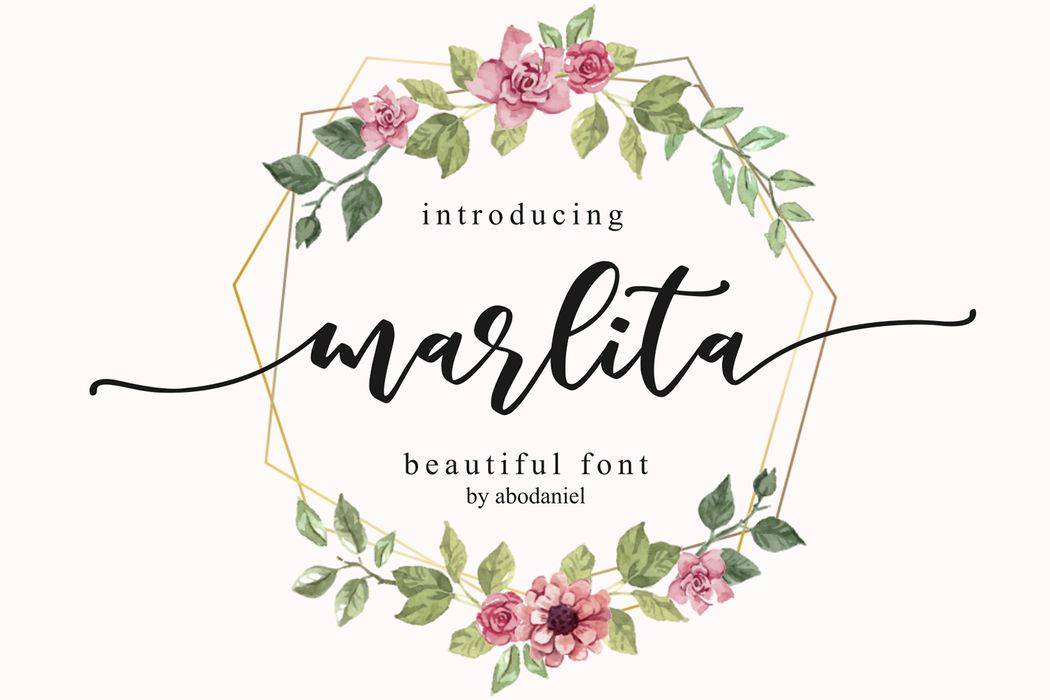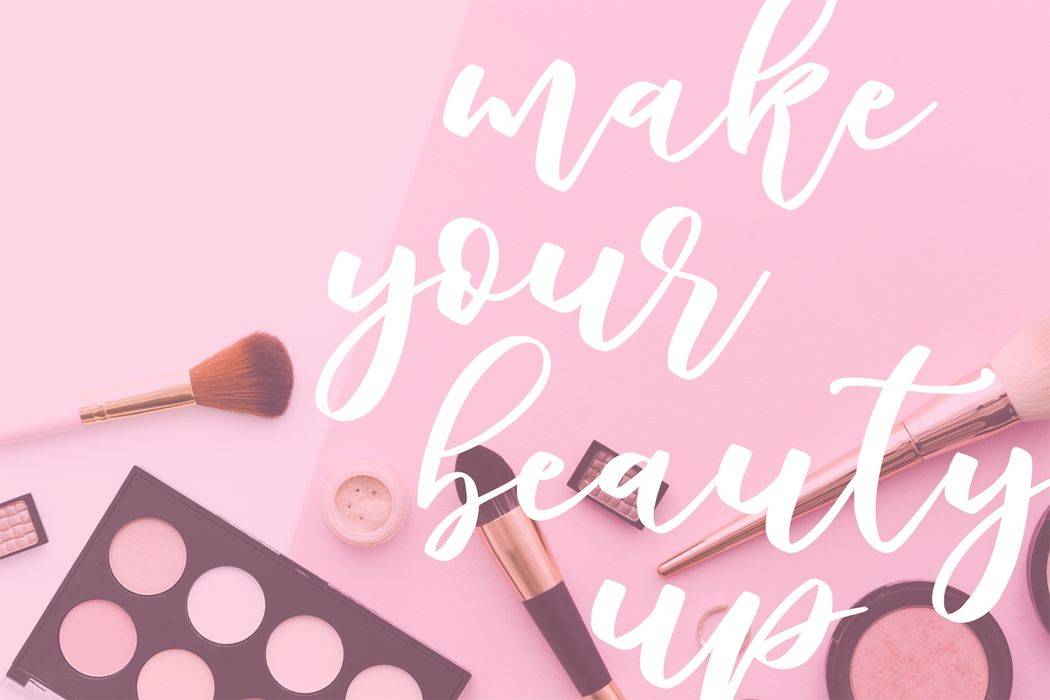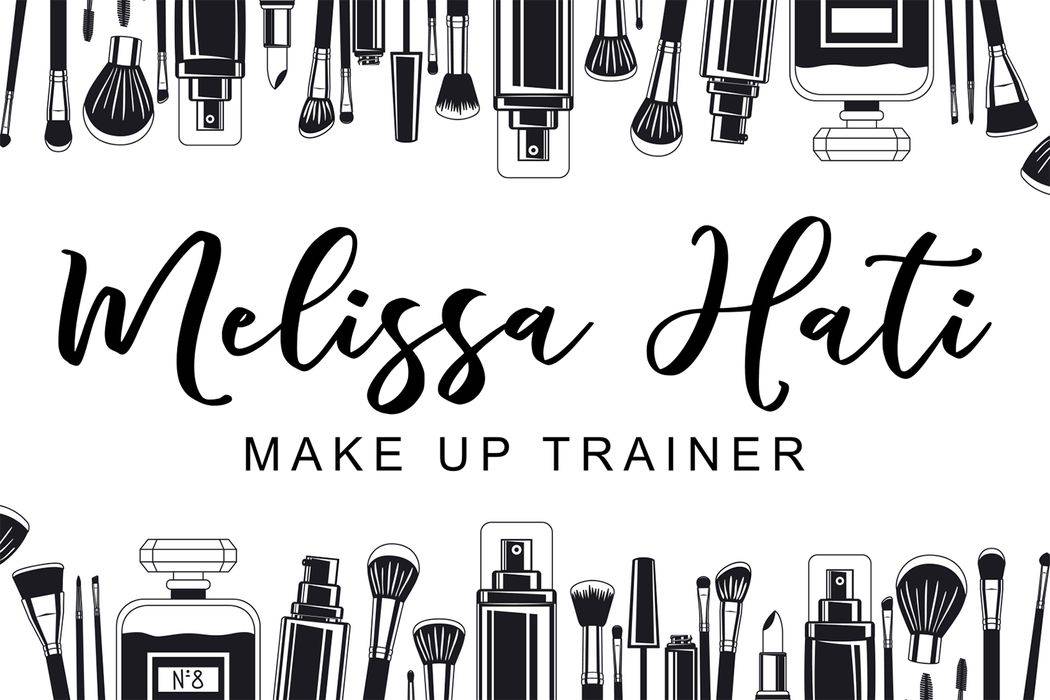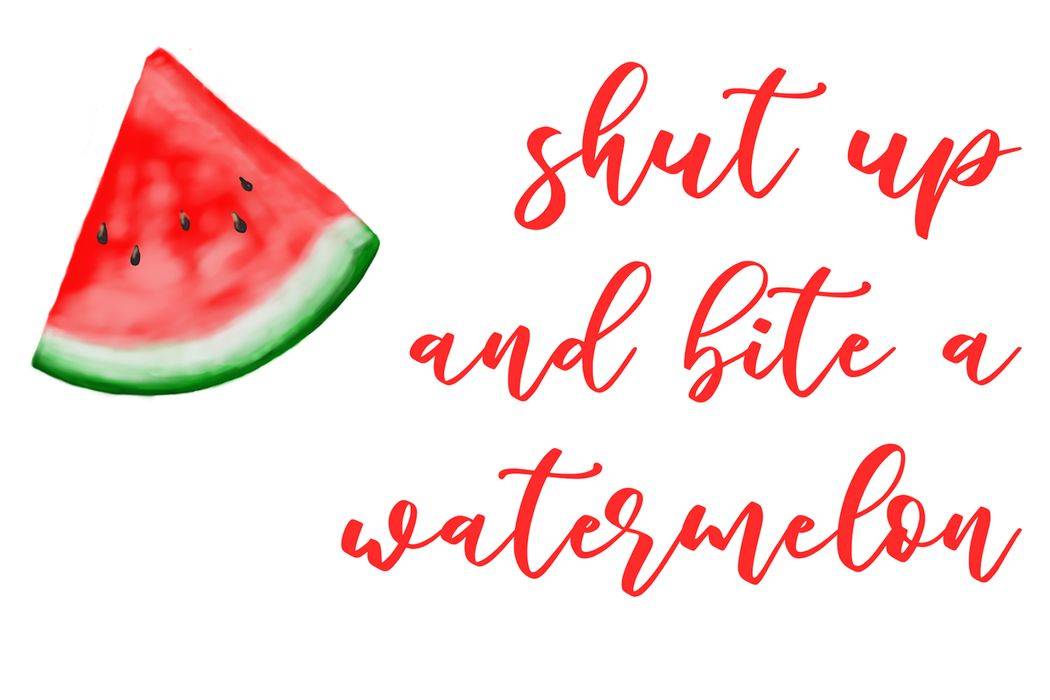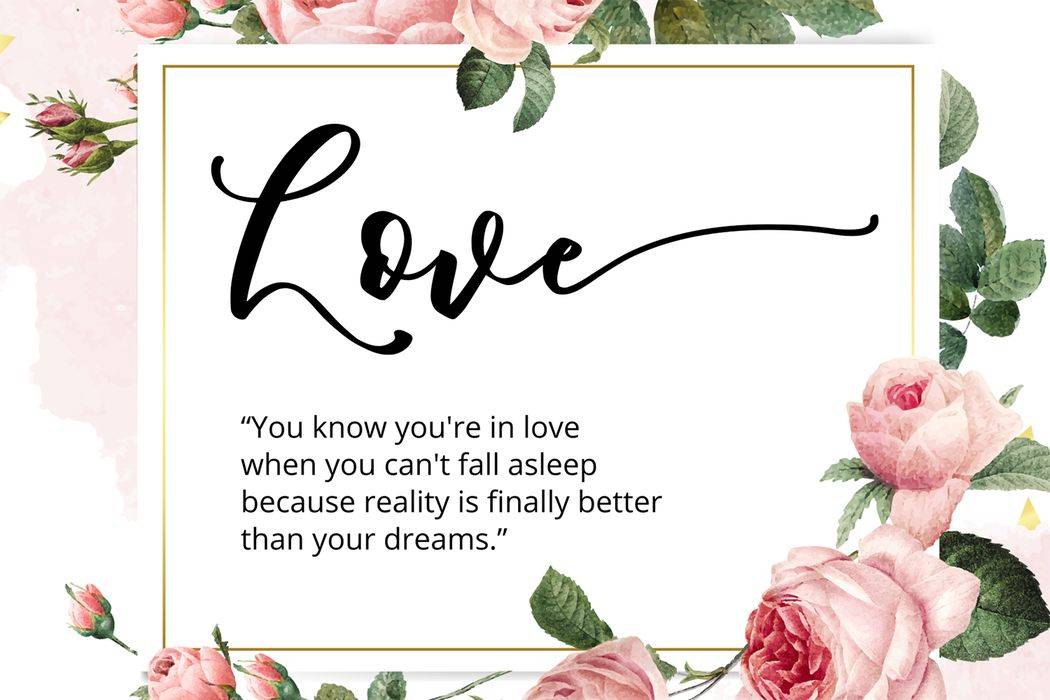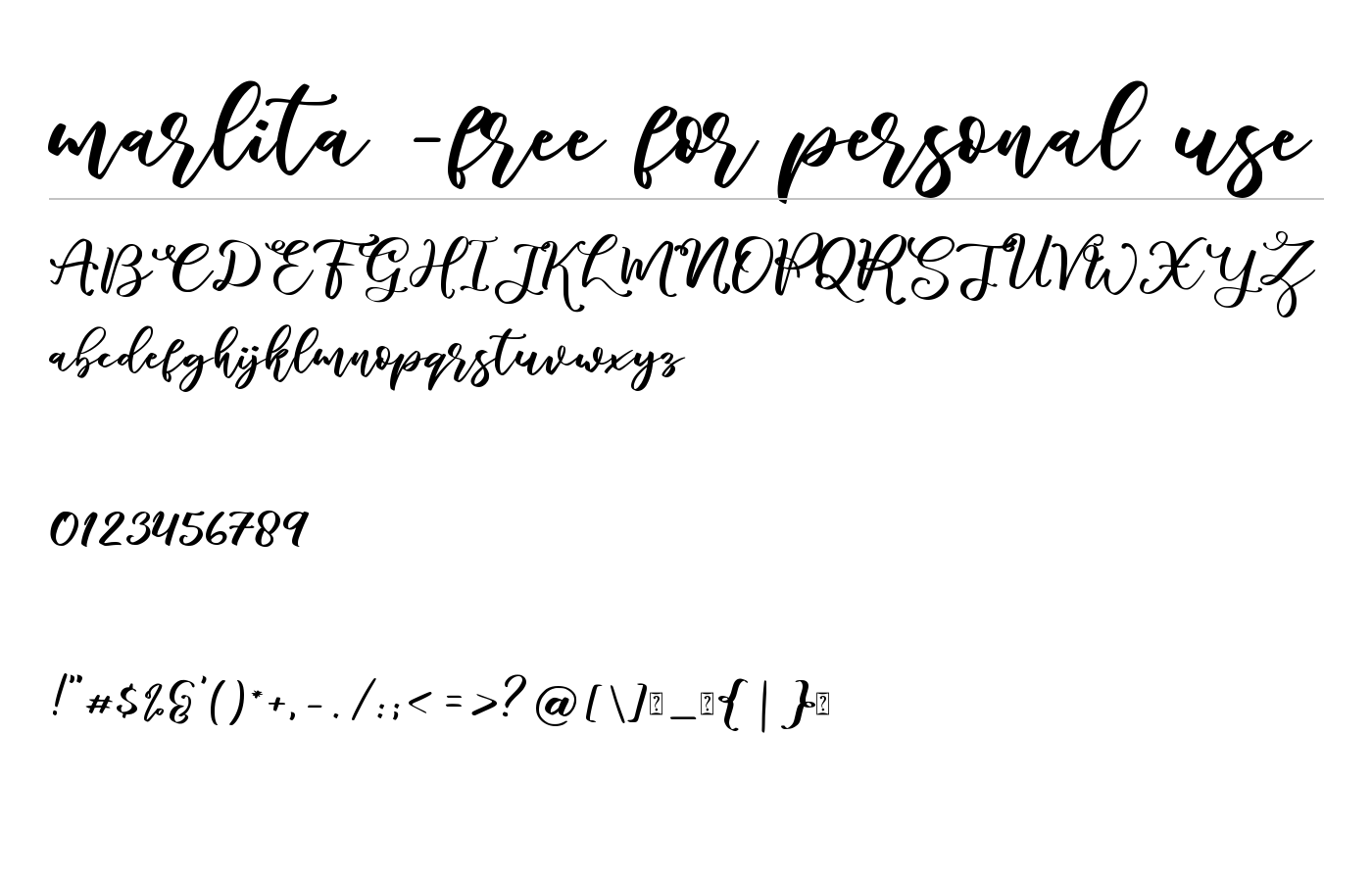
Marlita is a lively and elegant script font featuring smooth, flowing strokes and charmingly ornate uppercase letters with delicate flourishes. Its balanced weight and clear letterforms make it perfect for adding a personal, handcrafted touch to invitations, branding, and creative projects that seek a warm, stylish, and approachable feel. This font shines in headlines and display settings where a graceful, feminine aesthetic is desired.
Marlita Font
About Marlita Font
| Font family | Marlita Font |
| Designer | Abo Daniel 2019 |